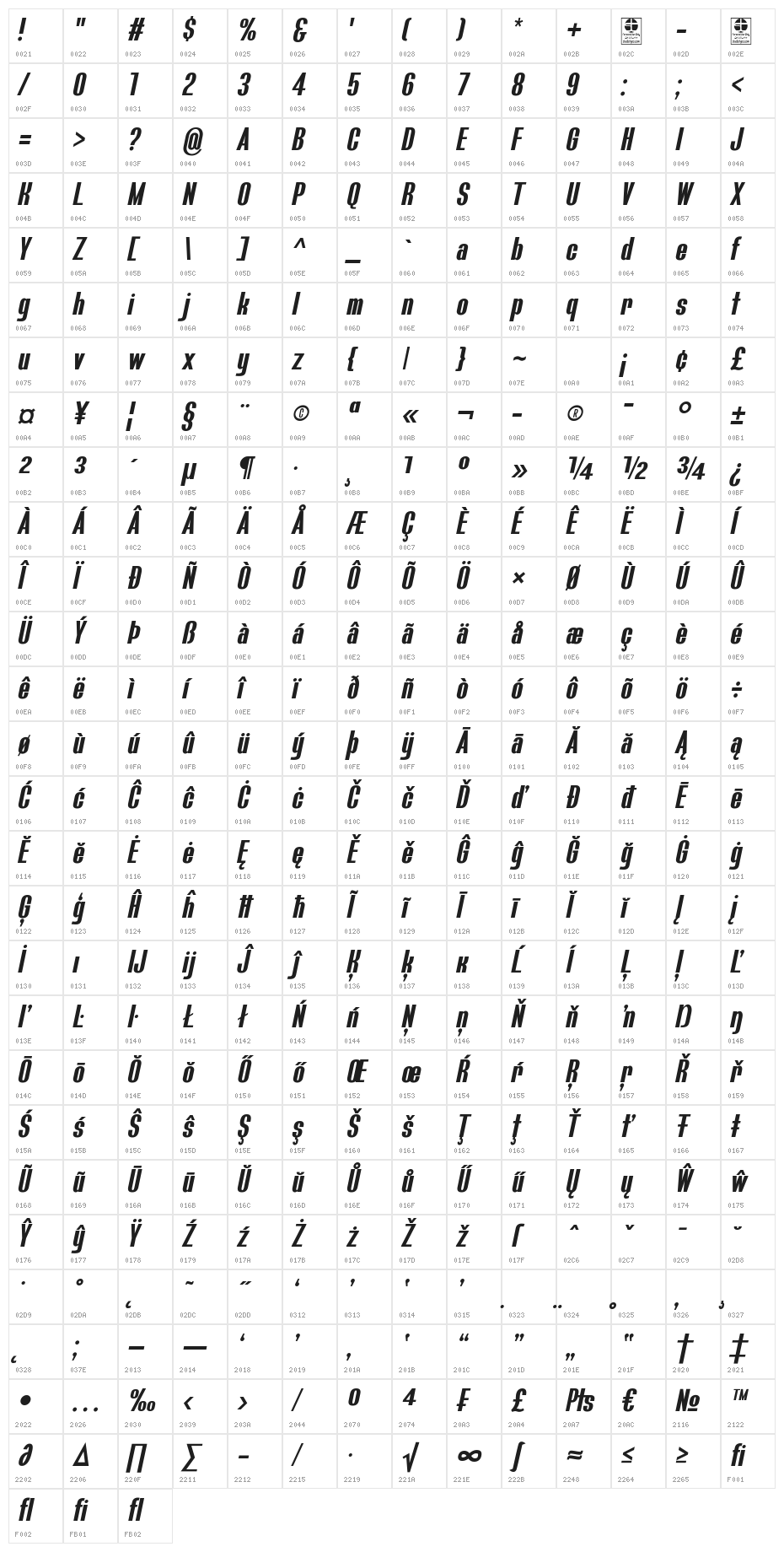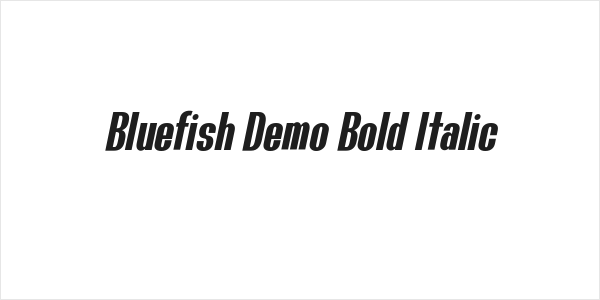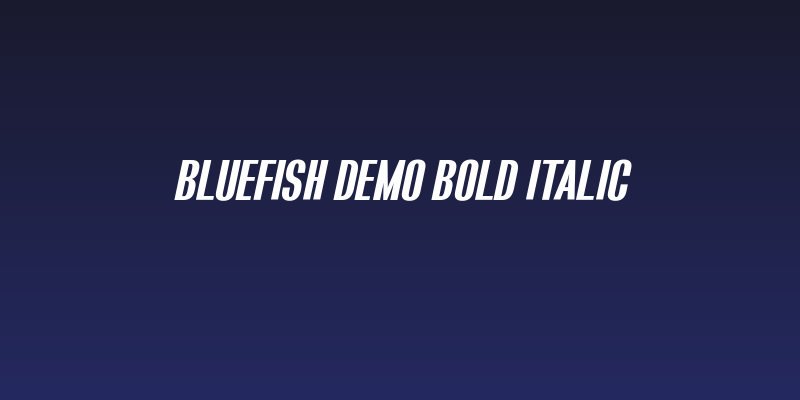
Bluefish Demo Bold Italic Font
Bluefish Demo Bold Italic Description
This font features a bold and italic style, characterized by its strong, slanted letterforms that convey a sense of dynamism and energy. The uppercase and lowercase letters are designed with a consistent stroke width, providing a uniform appearance. The numerals and special characters maintain the same bold and italicized characteristics, ensuring cohesive use across various applications. The font's design is modern and sleek, making it suitable for projects that require a contemporary and impactful visual presence.
| Proposed Projects | Ideal for headlines, posters, branding, and advertising where a strong and modern impression is desired. |